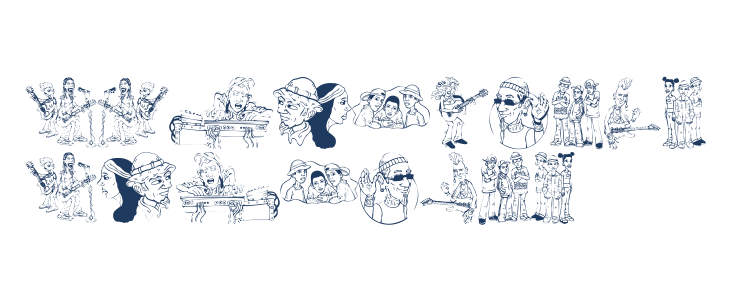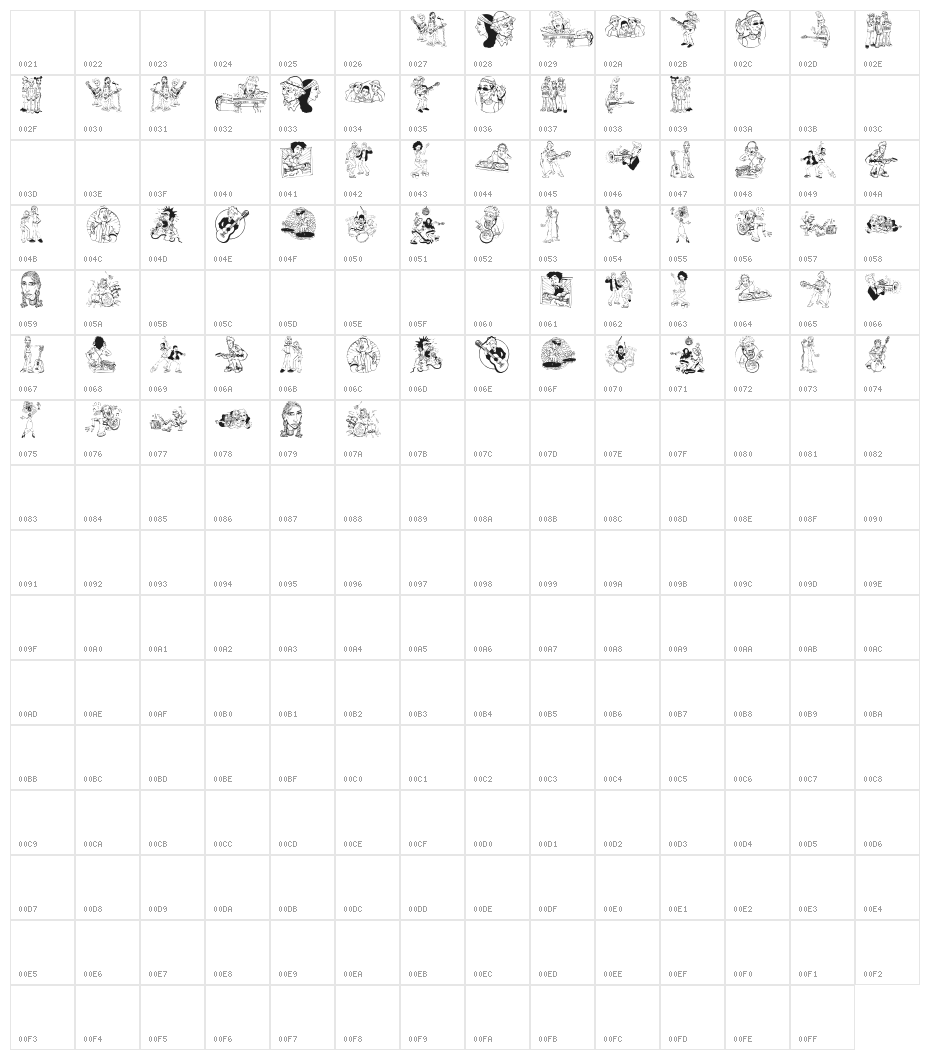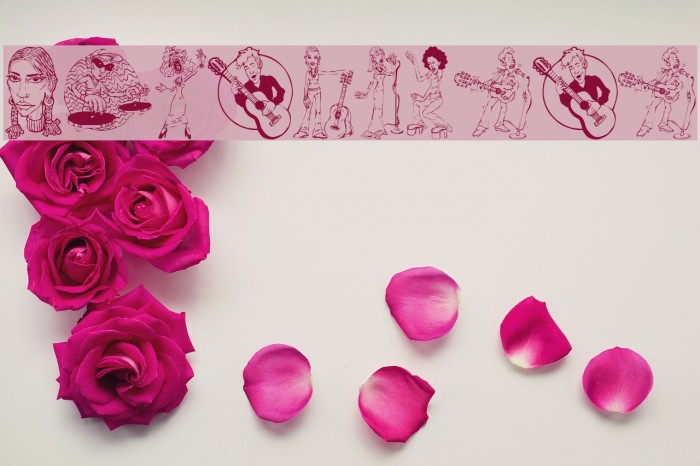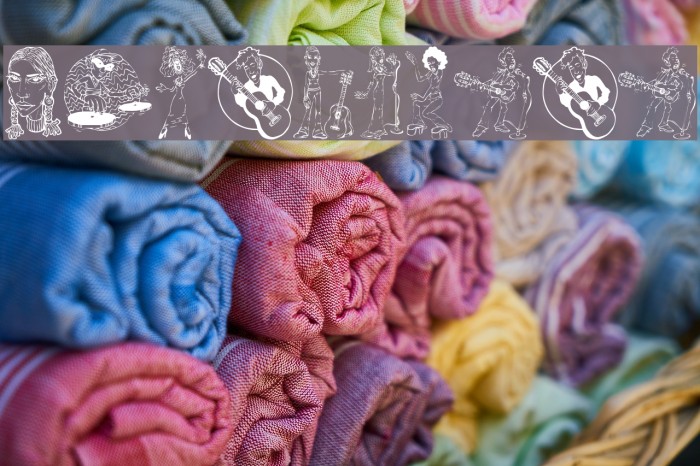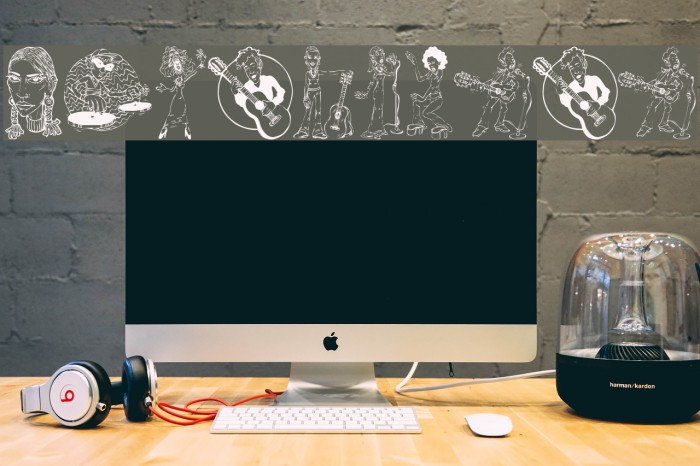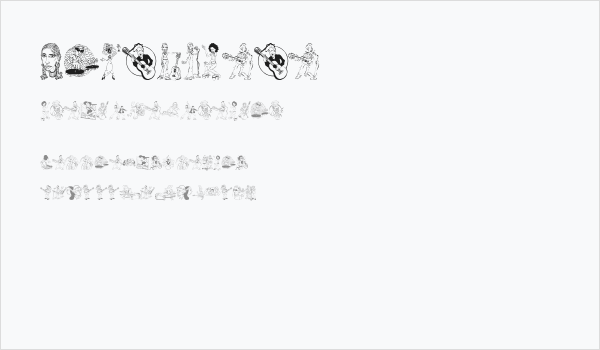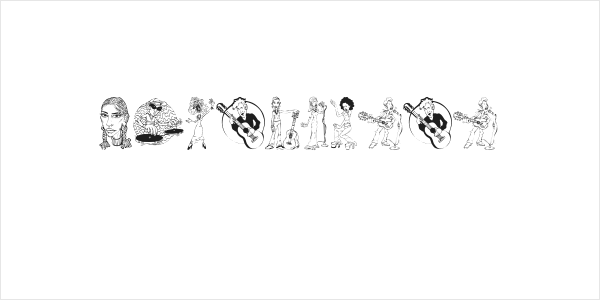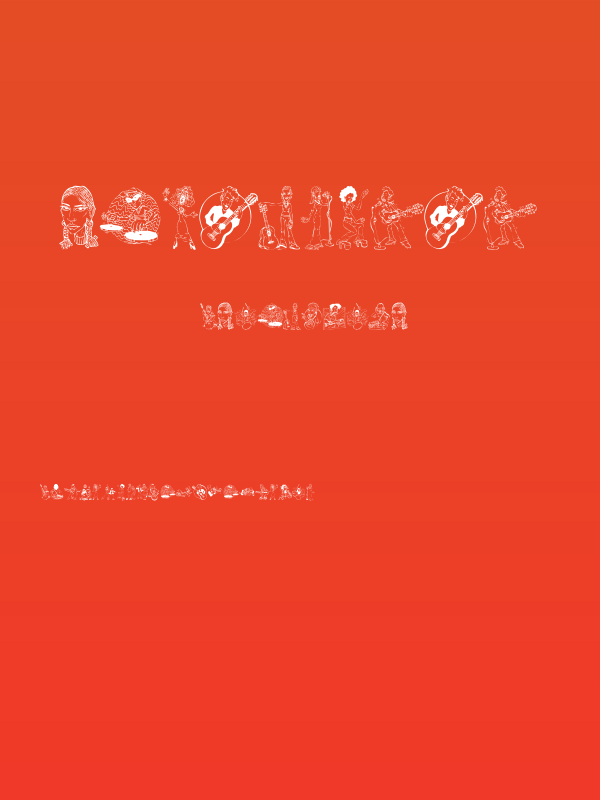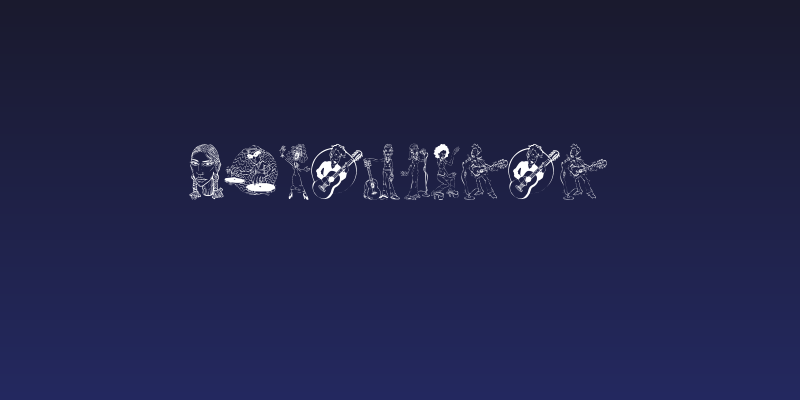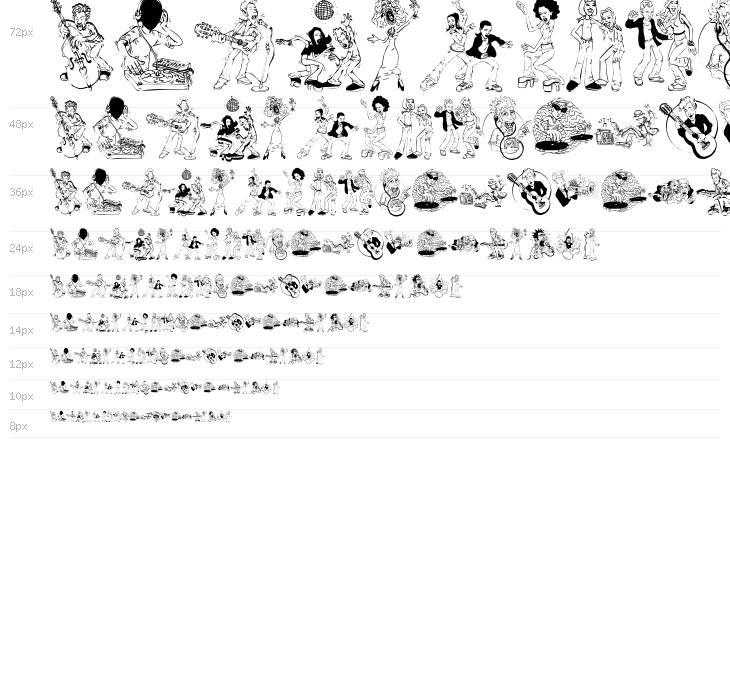
YoungScene Font
YoungScene Description
A highly decorative and illustrative font where each character is represented by a detailed cartoon-style drawing of musicians and performers, blending playful caricature with expressive line art. The glyphs are unique and complex, prioritizing visual storytelling over legibility.
| Overall Style | Decorative, Playful, Illustrative |
| Use Case | Headlines, Posters, Themed graphics, Album art |
| Proposed Projects | Posters for music events, album covers, youth-oriented branding, editorial illustrations, themed party invitations. |